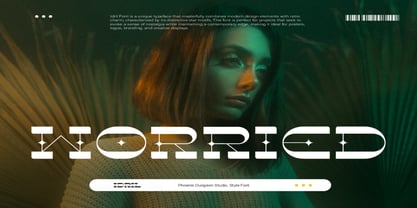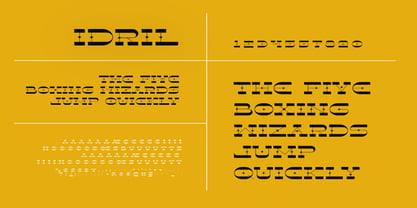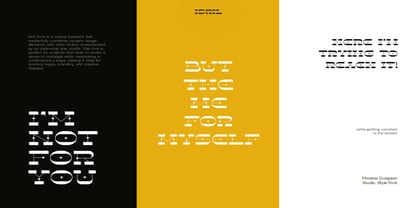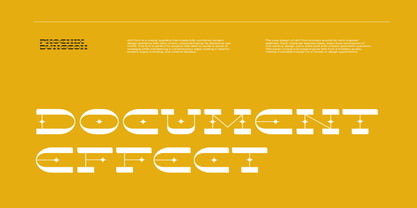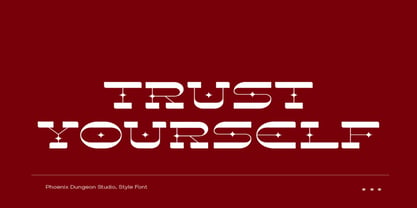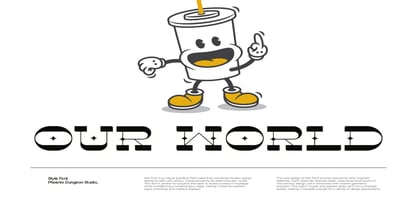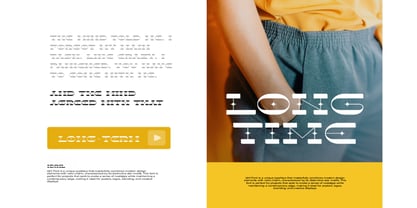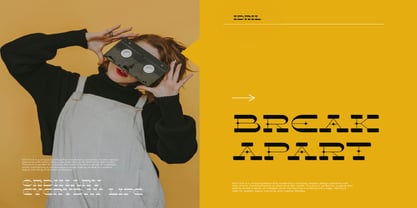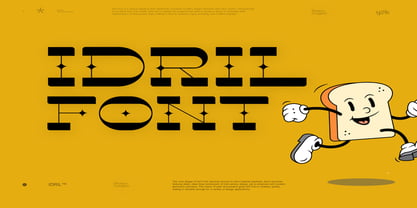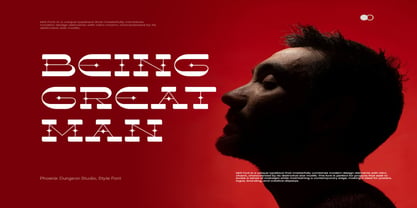
Idril
The Idril Font Family was designed by Alif Naufal Muzakki and published by Phoenix Group. Idril contains 1 styles. More about this family
Introducing Idril Font – a bold and imaginative display typeface that blends retro flair with modern minimalism. Crafted with precision, Idril is inspired by mid-century signage, vintage lettering, and playful geometric forms. Each character features clean lines and solid shapes, but with a unique twist: diamond-shaped inner cuts that give the typeface its iconic look and futuristic vibe.
Idril Font stands out with its balanced fusion of old and new. While the font design pays homage to nostalgic aesthetics, it also incorporates modern, sleek angles that make it perfect for today’s creative projects. It’s a font that doesn’t just speak – it shouts with character and energy. Whether you're creating branding, posters, packaging, apparel, headlines, or logo designs, Idril brings a quirky but professional edge to your work.
One of Idril's biggest strengths is its versatility. Despite its decorative nature, it maintains excellent readability at various sizes, making it suitable for both print and digital formats. The playful and animated personality makes it especially appealing for children’s books, comics, games, cartoons, or food packaging designs.
The font pairs well with minimal sans-serifs or handwritten styles, adding contrast and dynamism. Its chunky letterforms give off a strong presence, while the inner diamond cutouts act as eye-catching design elements without overwhelming the composition.
If you’re looking for a display font that’s bold, cheerful, and unforgettable – Idril Font is the perfect choice. Inject charm and confidence into your next design project with this one-of-a-kind typeface.